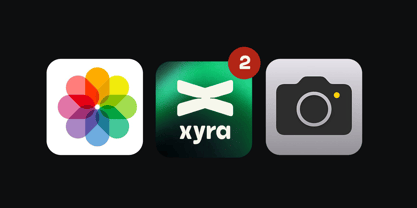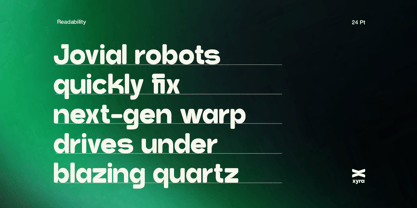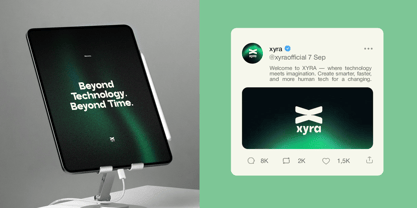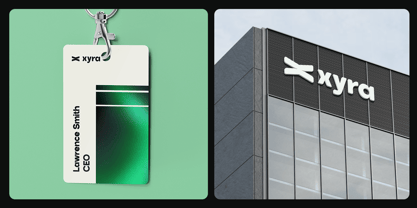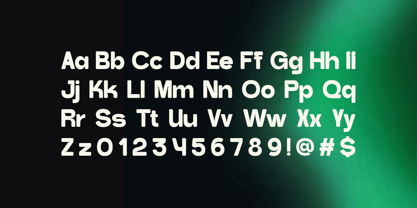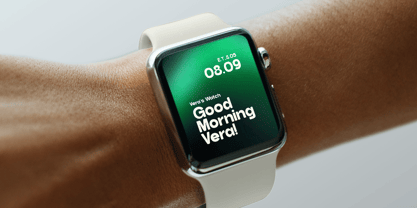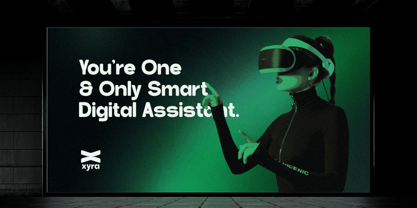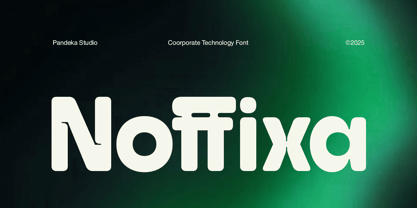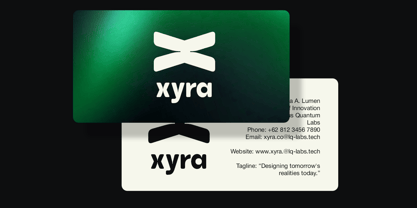
Noffixa
Noffixa is a modern sans serif font that blends corporate professionalism with futuristic innovation. Its smooth curves and bold geometry create a dynamic, tech-inspired look — perfect for startups, digital branding, software interfaces, and visionary corporate identities.
This font includes 2 styles: Regular & Slant, offering flexibility for logos, presentations, and UI design. Noffixa’s clean structure and forward-thinking design make it ideal for tech companies, apps, and any brand that values progress, clarity, and innovation.
• 2 Style: Regular and Slant
• Full Character Set: Uppercase, lowercase, numbers, symbols, and punctuation